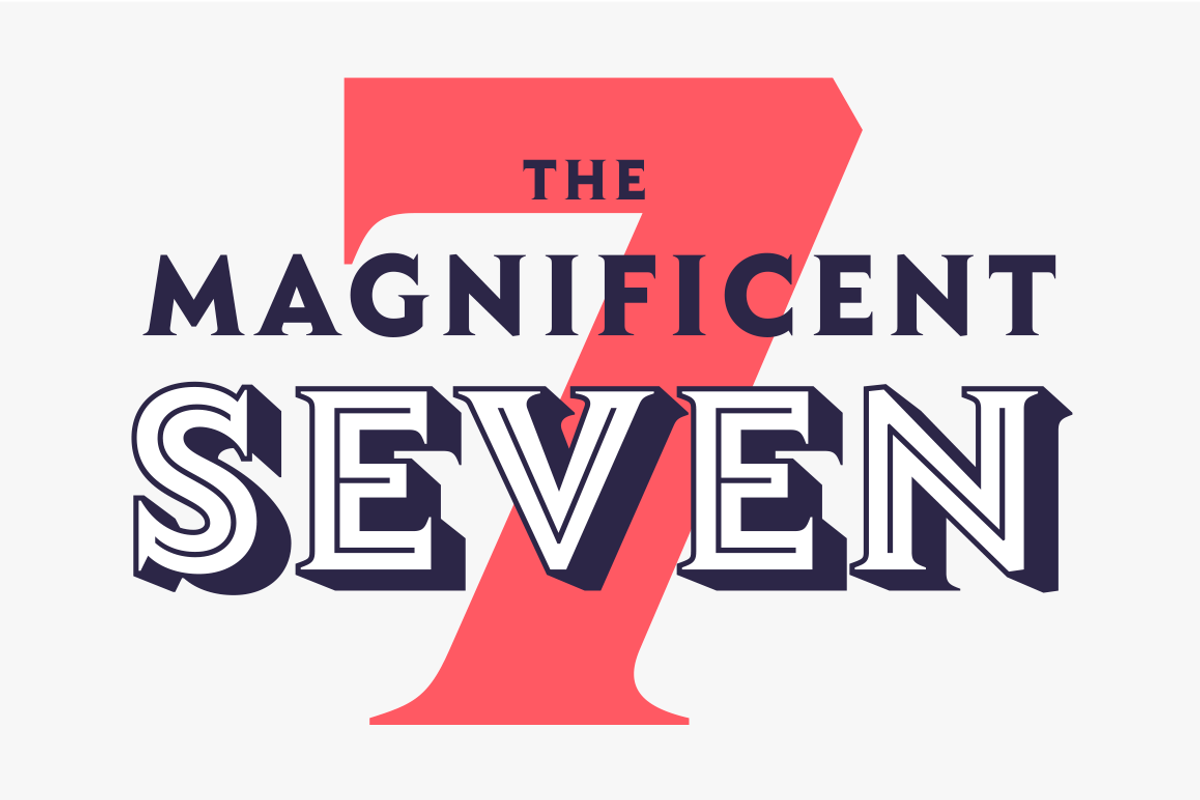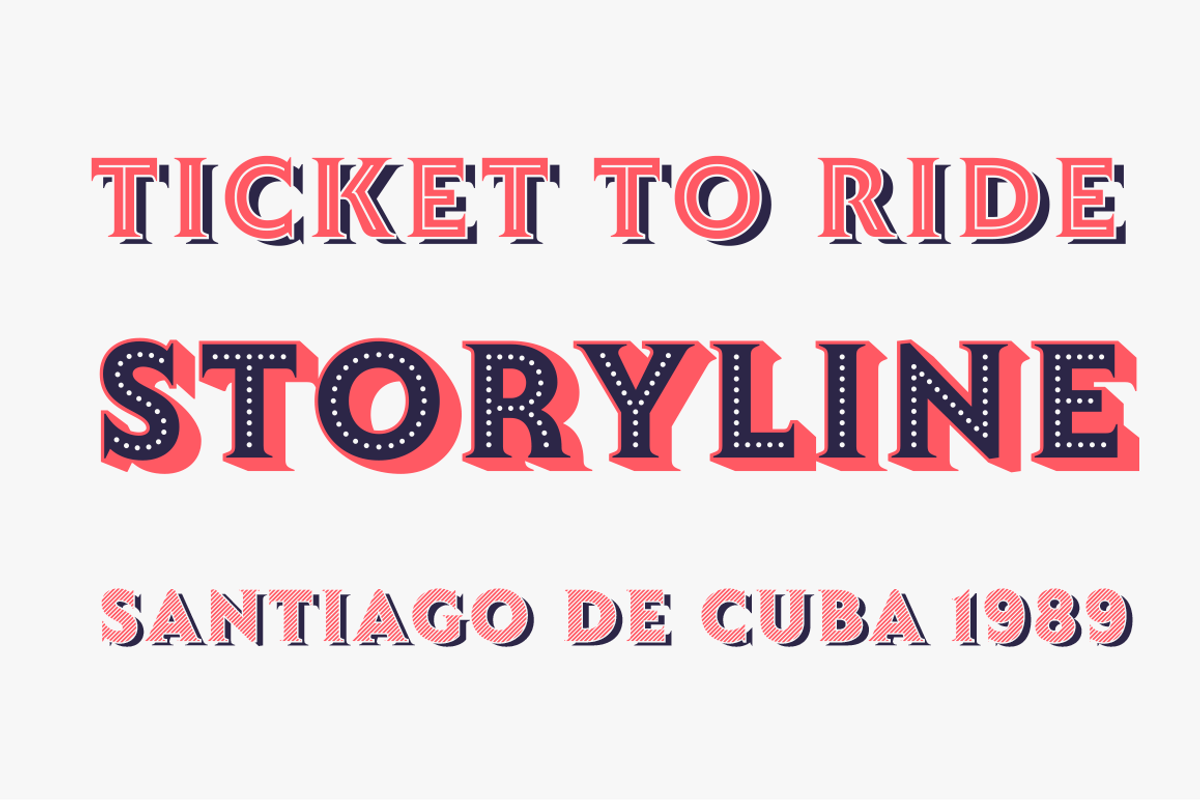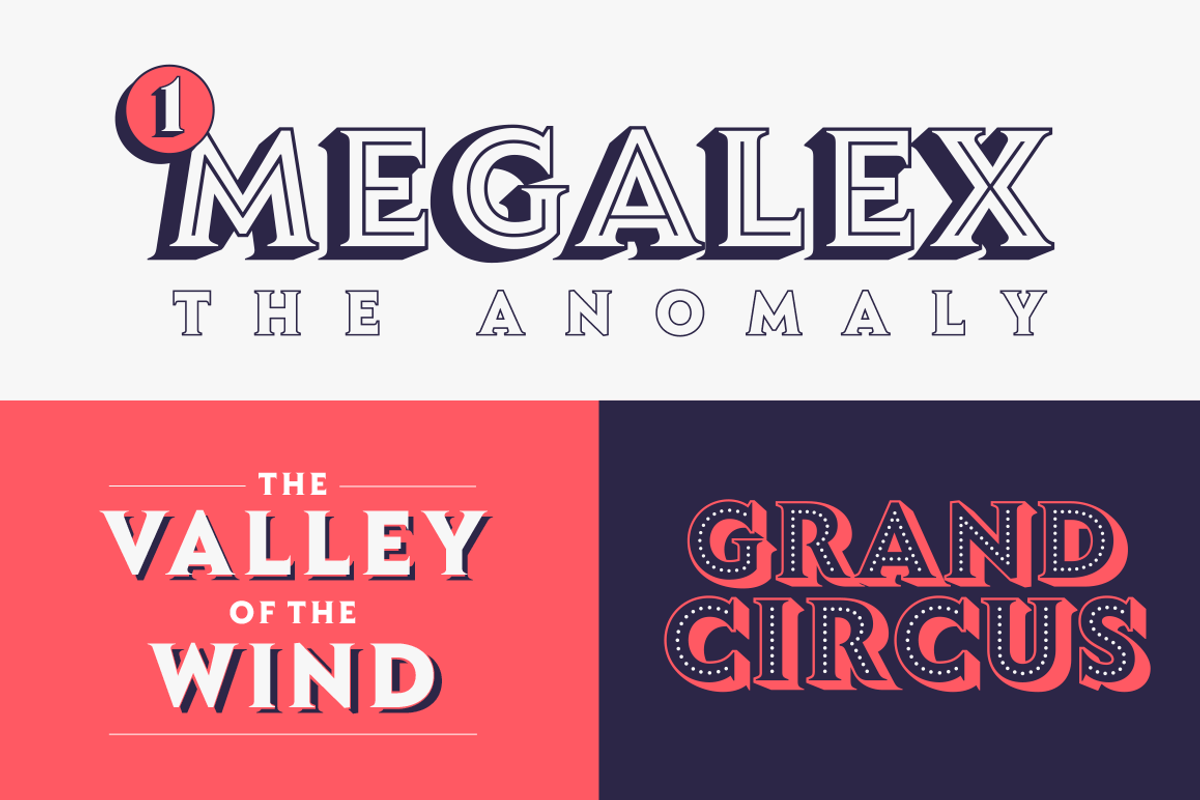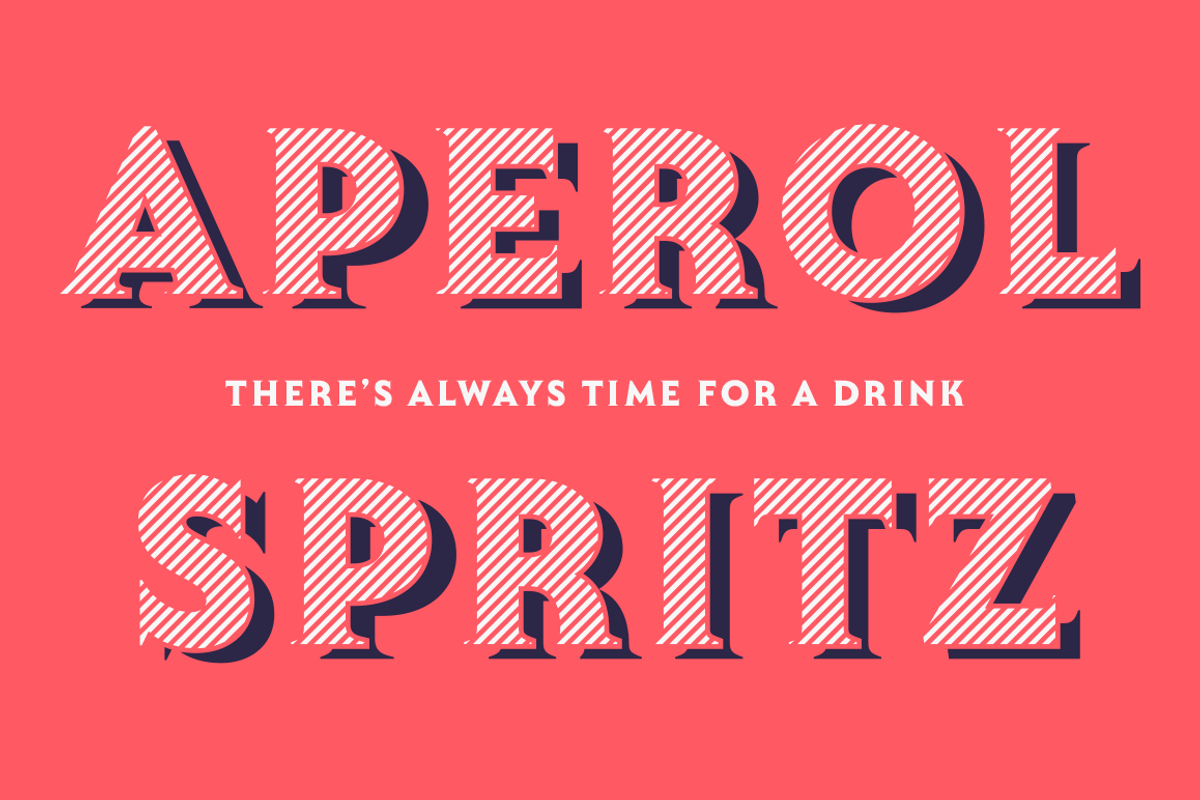
The main source of inspiration for this project was Herb Lubalin's Serif Gothic font. This and other fonts of similar style provided the basis for developing a unique display typeface with a strong personality yet neutral enough to be used in a variety of applications. In order to make the font more versatile, we included a number of layered fonts, like inline and shadow styles, which, along with the core styles, provide users with a wide range of choices for any design project.
The Lumiere Family comes in 14 styles and includes 2 different variants: multi-layered fonts that make Lumiere easier to use and single layer fonts which allow experimented designers to create their own combinations.
Lumiere is highly influenced by retro designs but it features a modern and simplified style that brings great value to your design work. The font is well suited for album covers, movie posters and book cover designs, among other uses.